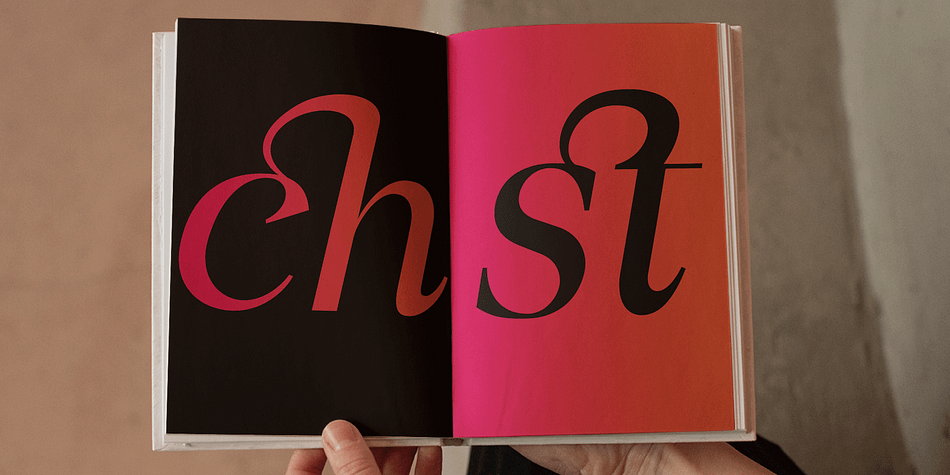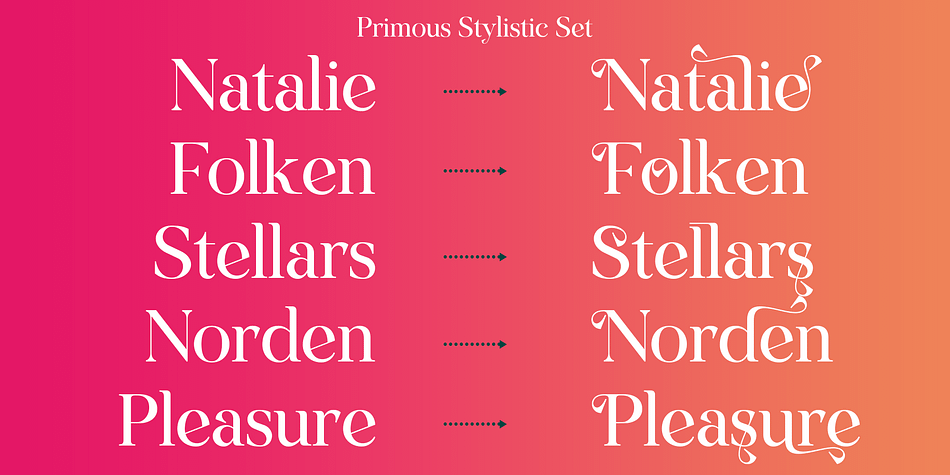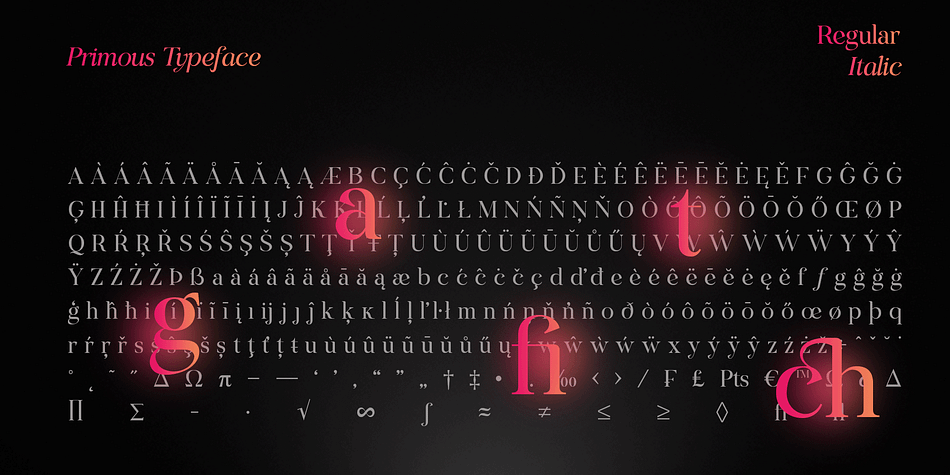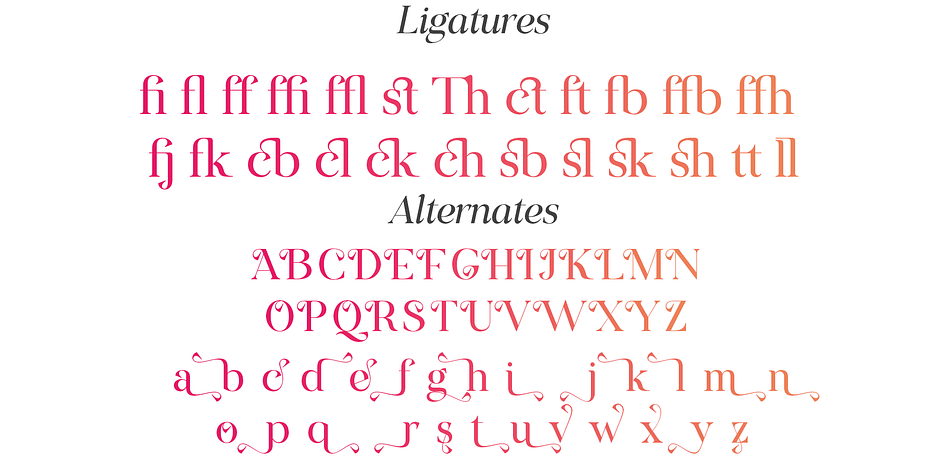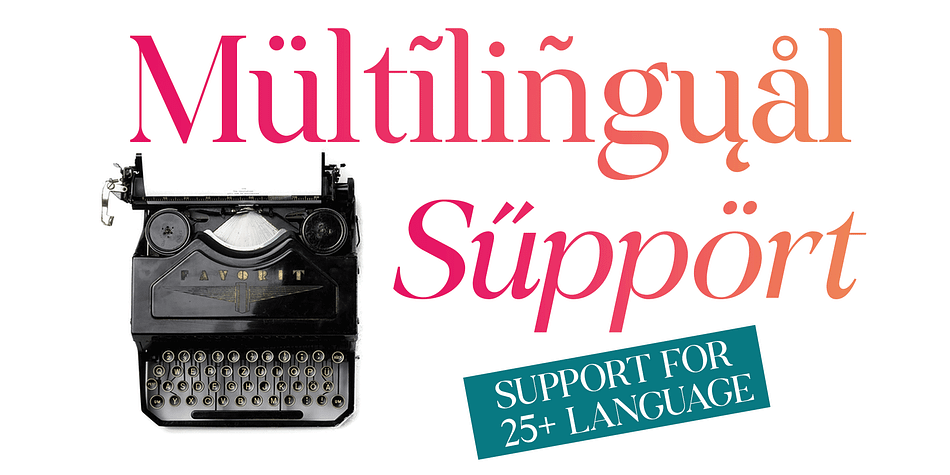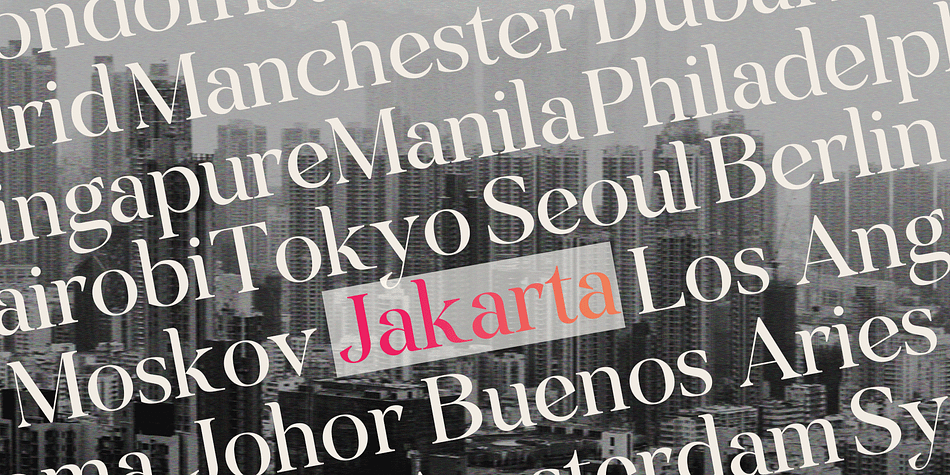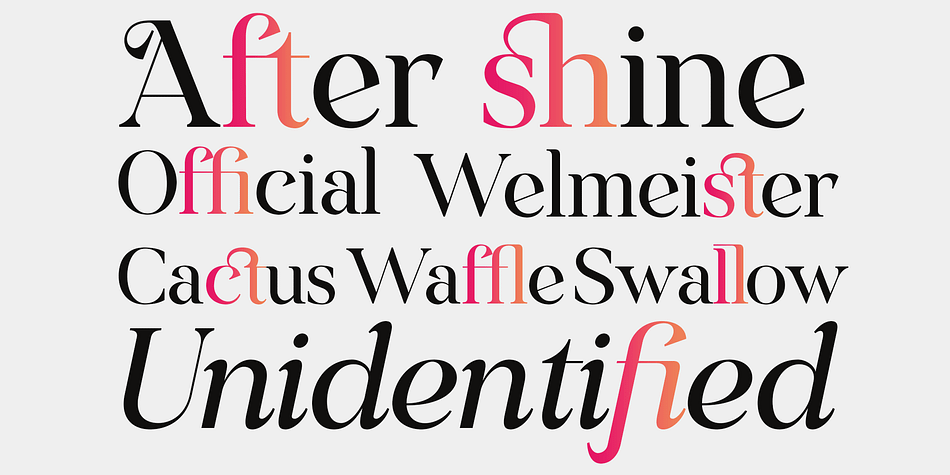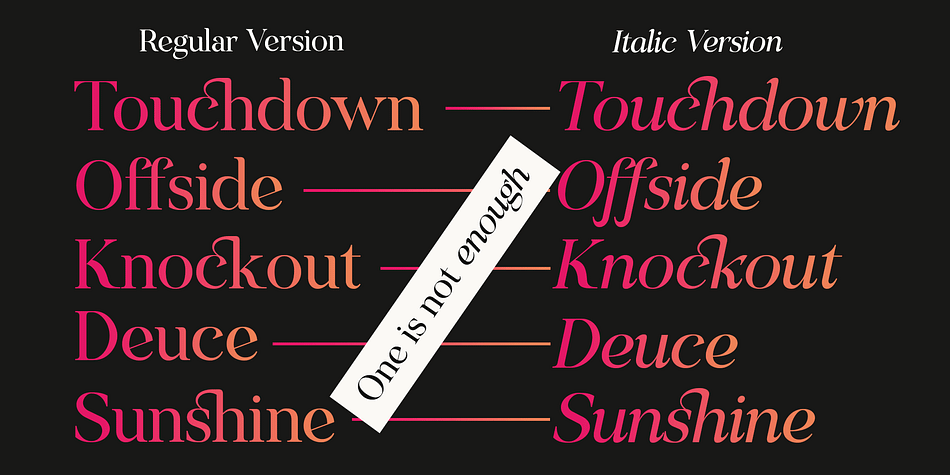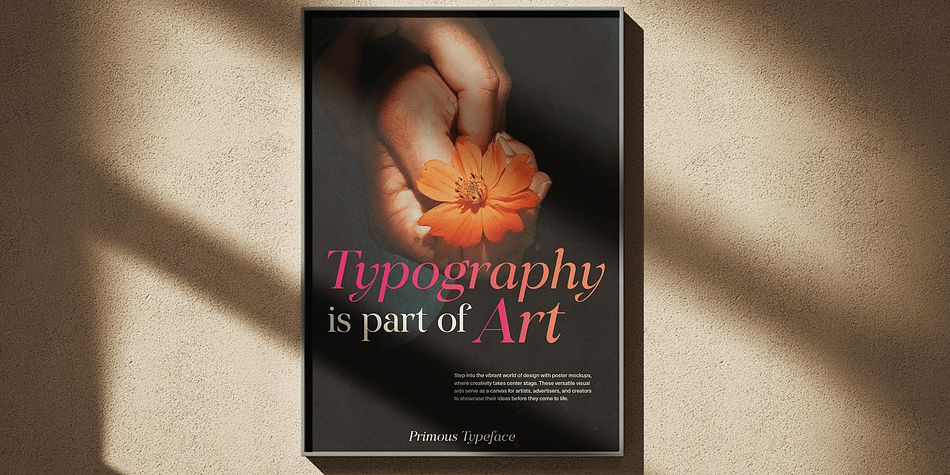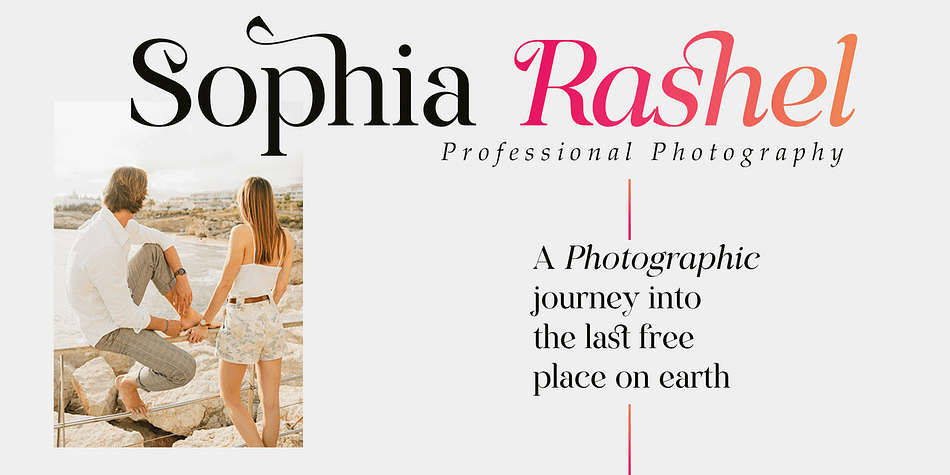
Primous
Primous is a serif font family. This typeface has two styles and was published by Gatype.
Primous is a modern vintage serif font packaged in a modern and classy style, complete with your OpenType feature access to access a large selection of alternative fonts and bindings, the choice of fonts you like from large and small font variations for a luxurious and elegant look.
This typeface has been enriched with additional alternate characters of up to 528 glyphs. Hope it helps to capture the soul of any design. Finally, there are no words that can be said other than “Success and enjoy.